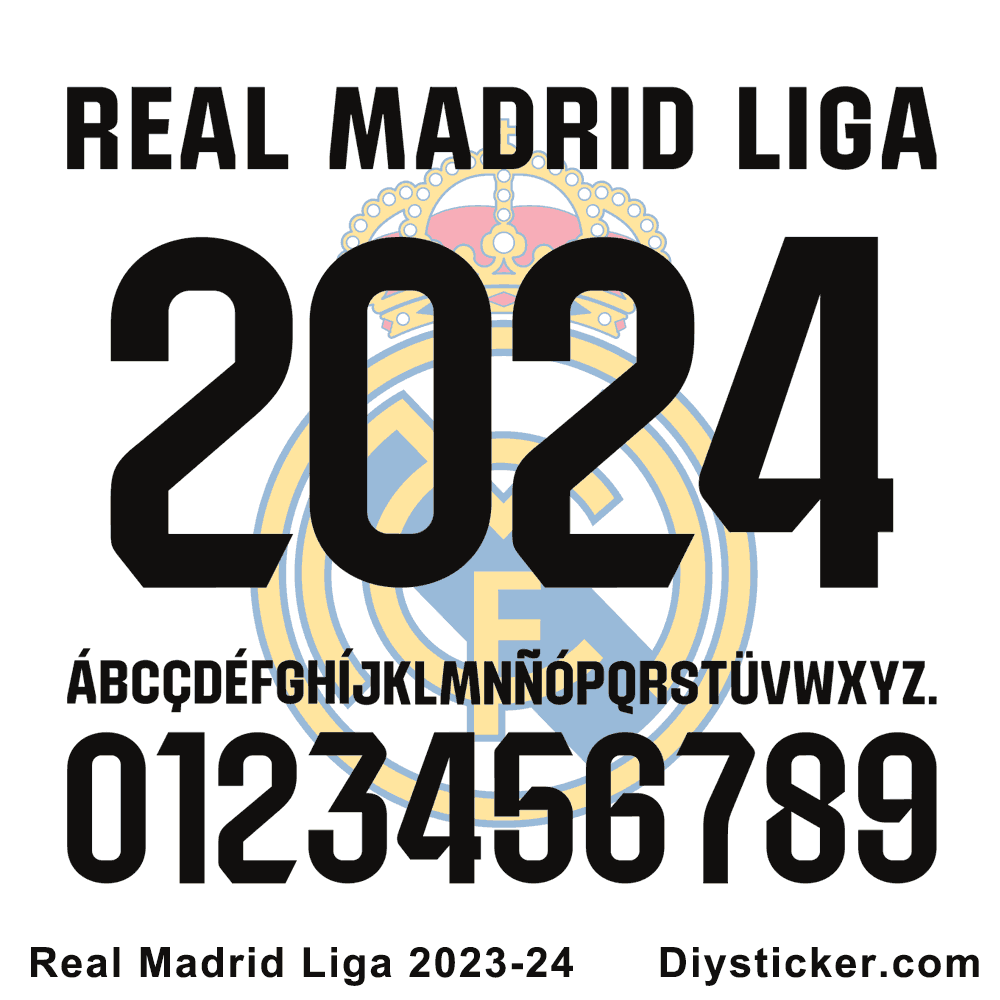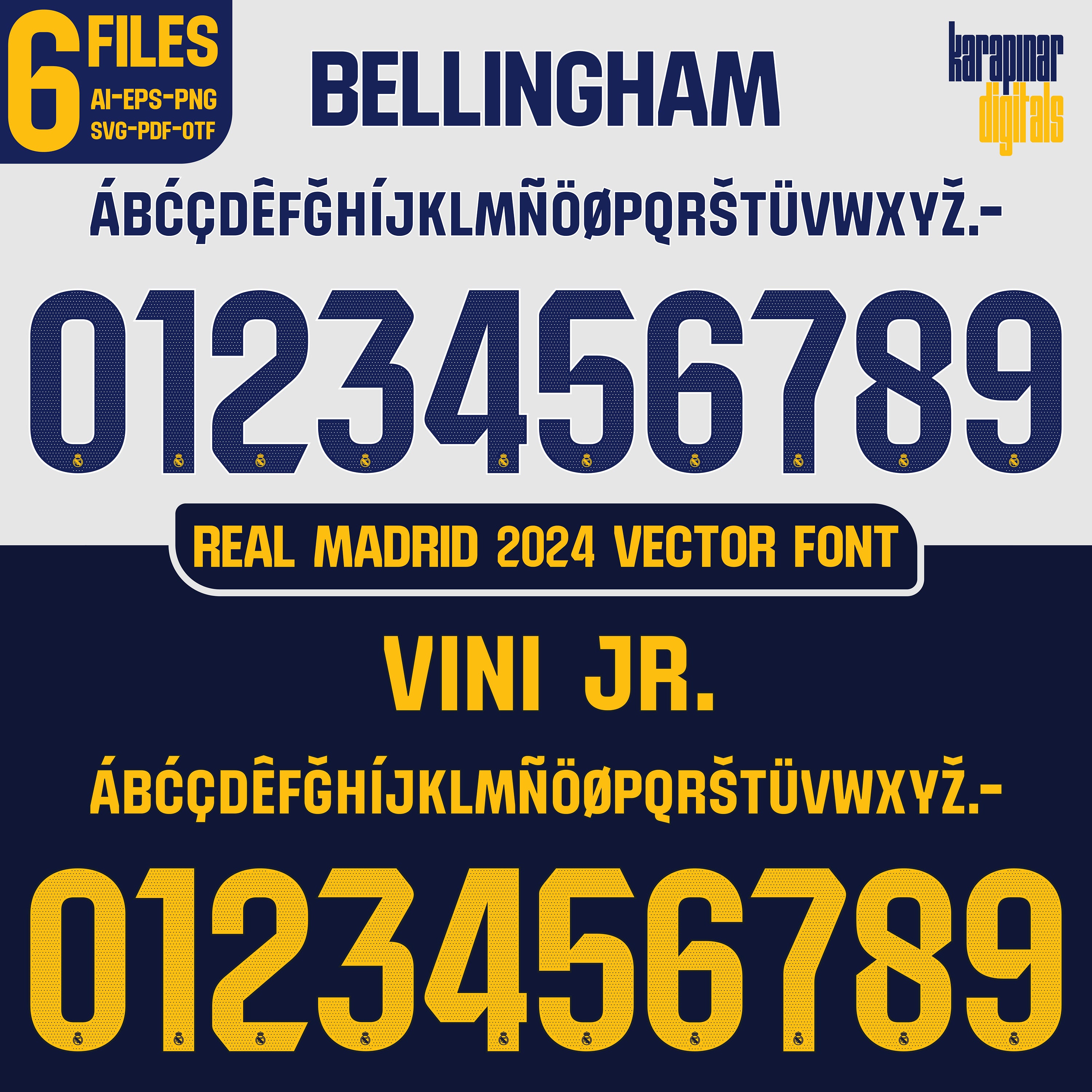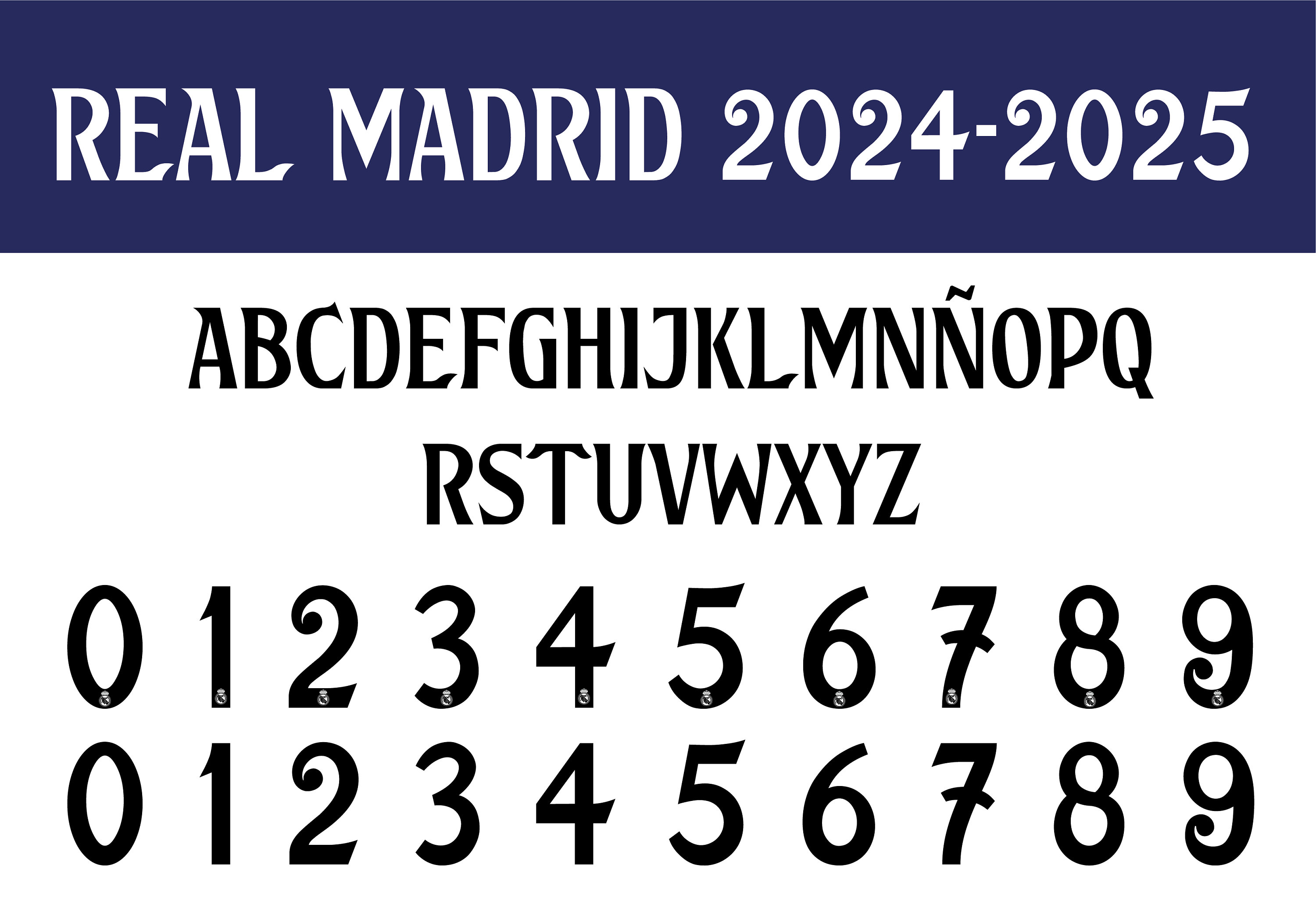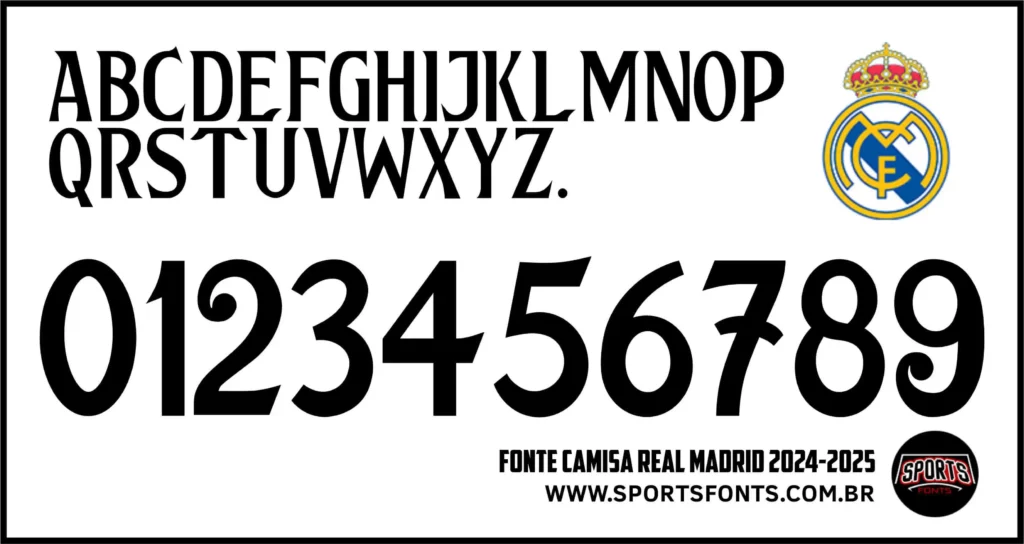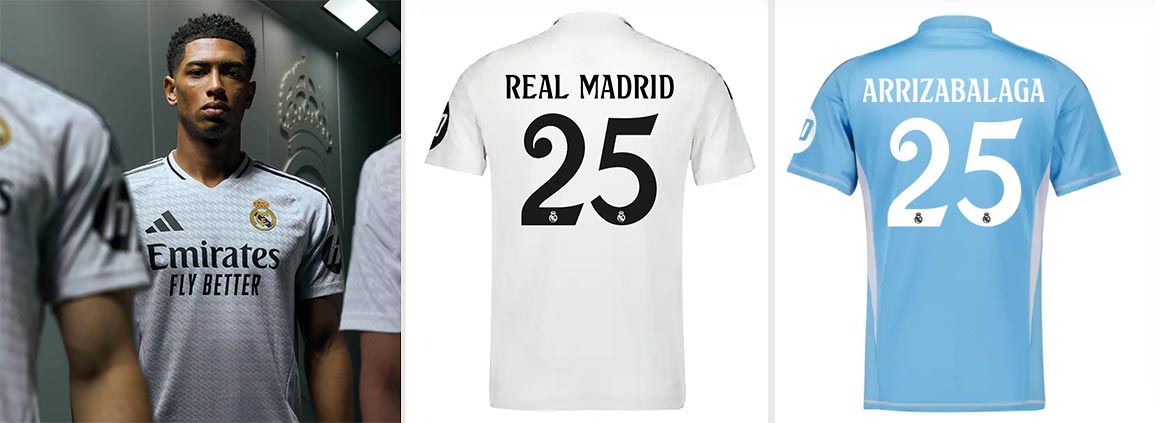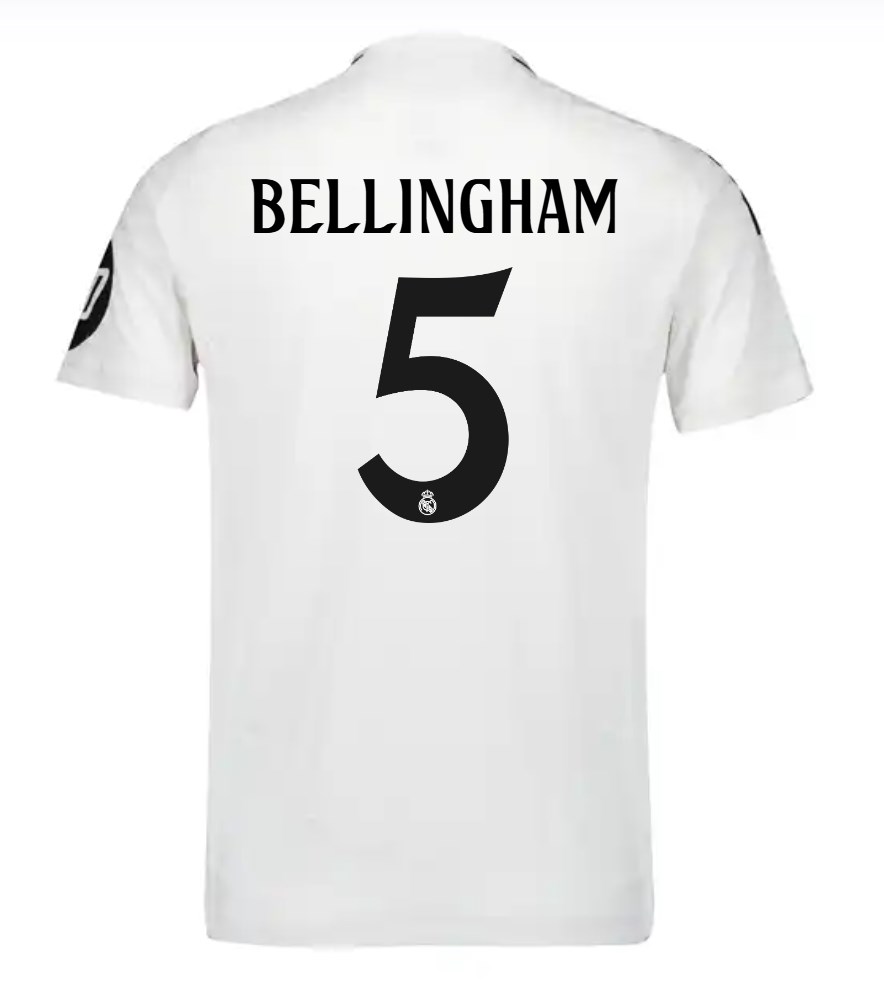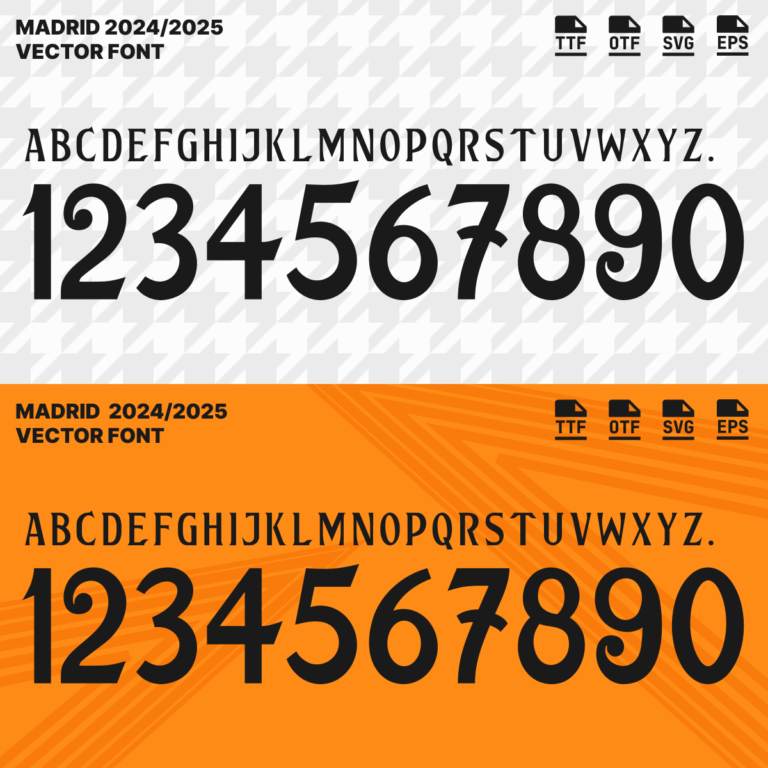
Decoding the Real Madrid Font: History, Usage, and More
Introduction: A Font Fit for Champions
Real Madrid, one of the most celebrated football clubs in the world, boasts a visual identity as iconic as its on-field achievements. Central to this identity is the real madrid font - a carefully chosen typeface that projects power, elegance, and a sense of history. But what exactly is the Real Madrid font? What is its history? And how has it evolved over the years? This article dives deep into the world of the real madrid font, exploring its origins, its usage across different platforms, and even how you might be able to achieve a similar look for your own projects.
The Evolution of the Real Madrid Font
The real madrid font has seen subtle variations over the years, reflecting the club's continuous effort to modernize its image while retaining its core values. Early iterations often featured a more classic, serif-based typeface, lending a traditional feel. As graphic design trends shifted, so did the real madrid font, evolving towards cleaner, more modern sans-serif options. This evolution ensures the club's branding remains relevant and appealing to a global audience. Finding specific historical details about the exact font name can be challenging, as clubs often commission bespoke fonts or modify existing ones.
The Current Real Madrid Font: Identifying the Style
Currently, the real madrid font primarily used for player names and numbers on their kits, as well as for official club communications, is a custom-designed typeface. It's a bold, sans-serif font with distinctive characteristics. While not publicly available for download due to copyright restrictions, its visual properties can be analyzed. It emphasizes strong lines and a powerful presence, reflecting the team's on-field dominance. The style is modern yet timeless, avoiding fleeting trends to maintain a sense of enduring quality. When searching, consider using keywords like "modern sans serif bold font," "sport font," and "athletic font."
Uses of the Real Madrid Font Beyond the Pitch
The influence of the real madrid font extends far beyond the football field. It's meticulously applied across various platforms, including:
- Official Website: Consistent use of the font ensures brand recognition and a cohesive user experience.
- Merchandise: From jerseys to scarves, the real madrid font is prominently featured on all club merchandise, creating a strong association with the brand.
- Advertising Campaigns: The font helps convey the club's message of excellence and victory in advertising materials.
- Social Media: A consistent visual identity across social media channels, including the real madrid font, reinforces brand awareness and engagement.
Recreating the Real Madrid Font Aesthetic: Alternatives and Inspirations
While obtaining the exact real madrid font might be impossible without proper licensing, you can achieve a similar aesthetic by exploring alternative fonts. Look for bold, sans-serif typefaces with a clean and modern design. Options like Montserrat, Bebas Neue, or even variations of Futura can offer a comparable feel. Experiment with letter spacing and font weight to fine-tune the look. Consider using online font identification tools - simply upload an image of the real madrid font, and these tools will suggest similar alternatives.
The Psychology Behind the Real Madrid Font Choice
The choice of real madrid font isn't arbitrary. It's a carefully considered decision rooted in brand psychology. The bold, clean lines of the font project strength, confidence, and authority. The font's legibility ensures clear communication, while its modern aesthetic appeals to a broad audience, from hardcore fans to casual observers. By maintaining a consistent visual identity, including the real madrid font, the club reinforces its brand recognition and strengthens its connection with fans worldwide.
Real Madrid Font: Protecting Intellectual Property
It's important to understand that the real madrid font, as part of Real Madrid's overall branding, is protected by copyright laws. Using the font without permission can lead to legal repercussions. If you're interested in using a similar font for commercial purposes, it's best to either purchase a commercial license for a similar font or commission a custom typeface that captures the desired aesthetic without infringing on existing copyrights.
Q&A About the Real Madrid Font
Q: What is the name of the Real Madrid font?
A: The exact name of the font is usually a custom-designed typeface, and not publicly available.
Q: Can I download the Real Madrid font for free?
Q: What are some fonts similar to the Real Madrid font?
A: Similar fonts include Montserrat, Bebas Neue, and variations of Futura.
Q: Why is the font so important to Real Madrid's branding?
A: The font helps project strength, confidence, and authority, reinforcing brand recognition and connecting with fans.
Q: Where is the Real Madrid font used?